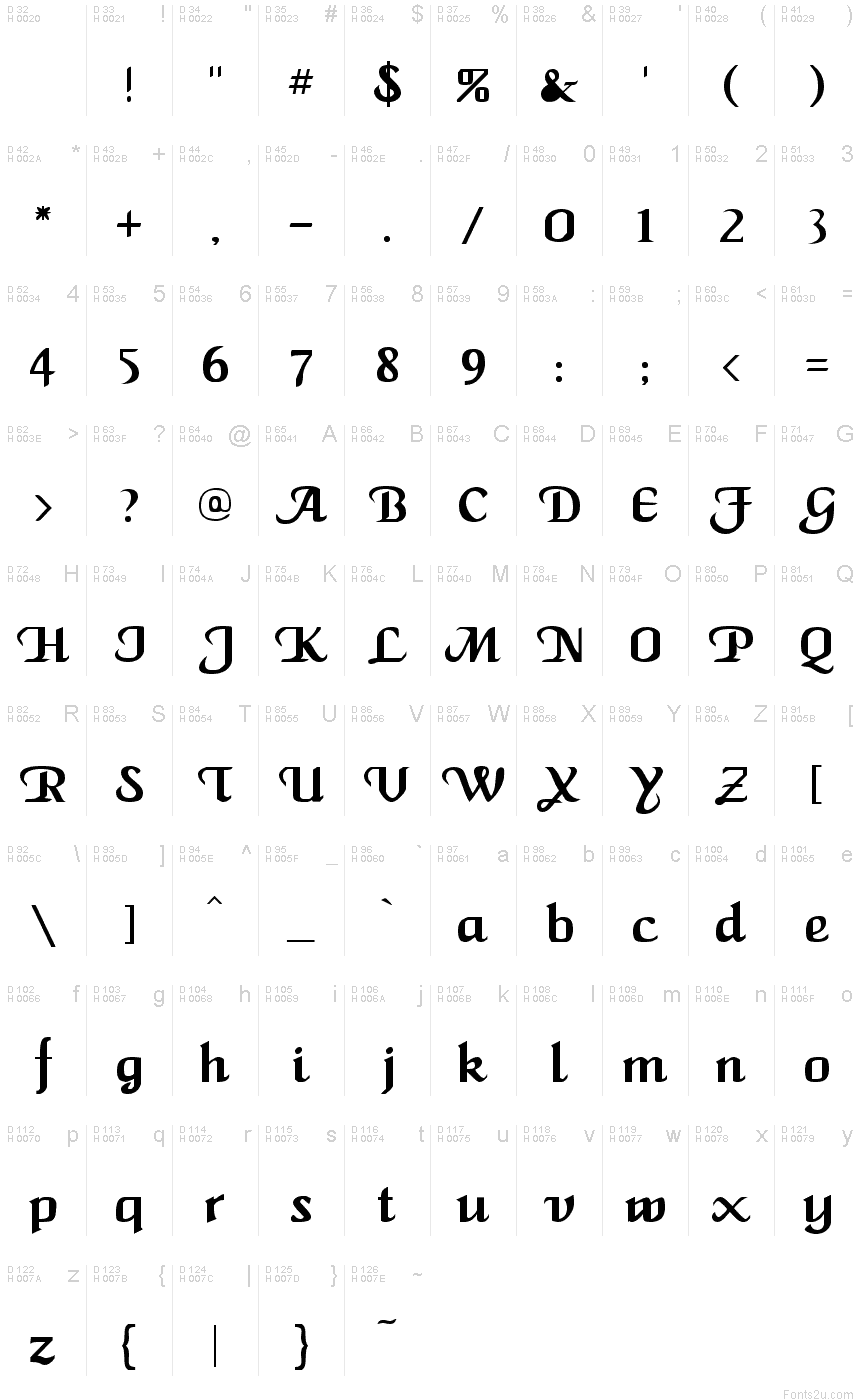
CaligulaA
Caligula A font is a free oldstyle serif font with hefty, inky strokes and gently flared details that feel both historical and approachable. Its rounded curves contrast with sturdy verticals, giving the word a steady rhythm that reads clearly even at smaller sizes while still feeling distinctive in a logo or headline.
Using Caligula A, you get a serif look that suits book covers, historical posters, vintage-inspired branding, certificates, event invitations, and classical music programs. The dense, dark texture of this free font works beautifully when set a bit larger than your usual text size, letting its character show without overwhelming the layout. For a balanced look, pair CaligulaA with a simple sans serif for captions or UI elements to keep your designs grounded and readable.